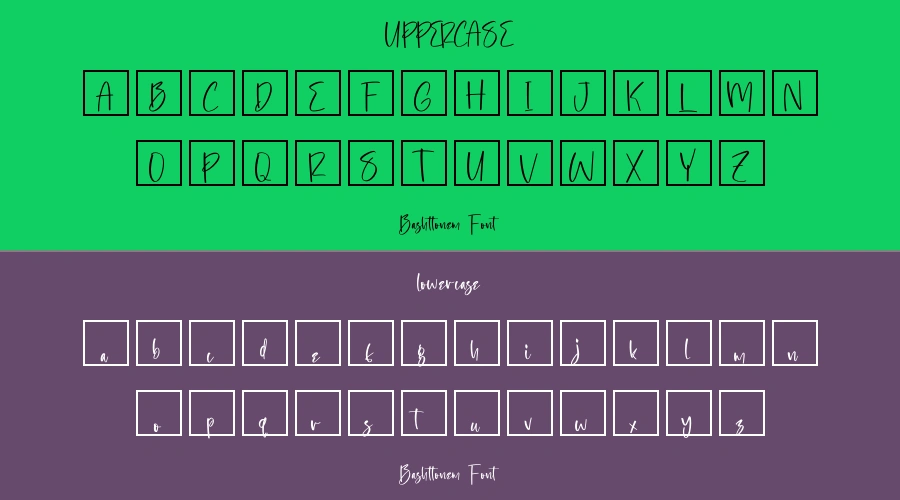
About Bashttonem Font
Bashttonem Font represents a sophisticated approach to type design, balancing ornamental caps with design consistency. Perfect for presentation decks, this font family showcases impressive refinement and aesthetic excellence throughout its character set. Designers appreciate its versatility and reliability.
Designers will appreciate nuanced touches including teardrop terminals and currency signs, adding sophistication to any project. These features become apparent in pull quotes, where performance matters most. The careful treatment of letterfit and cultural relevance ensures optimal performance.
Bashttonem Font |